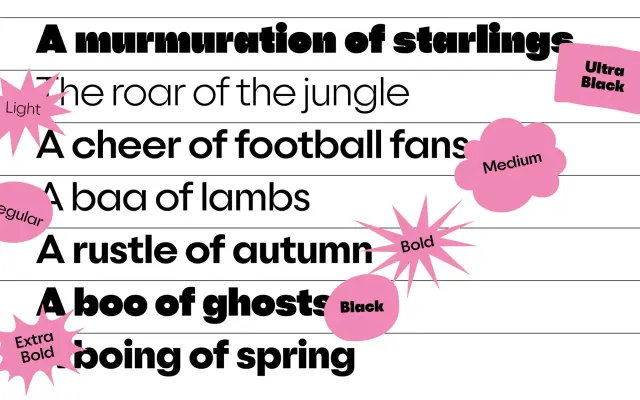
F37 Sonic
F37 Sonic specimen from F37 Foundry
A fourteen-style geometric sans from F37 drawn sharp and loud for amplified brand and headline work, with an Arabic companion.
A geometric sans serif by F37 pitched at brand and editorial work that needs to shout. Fourteen styles run across seven weights from Light to UltraBlack with matching italics, with F37 Sonic Arabic extending coverage. The drawing is sharp and impactful, sitting closer to display than text, and F37 lean into sonic branding ideas in the marketing copy. Pairs cleanly with F37 Bobby, F37 Kookie and F37 Caslon in the foundry's suggested combinations.
An unusual geometric sans serif from F37, drawn sharp and amplified for attention-getting headline and brand work, with a fourteen-style family and an Arabic companion.